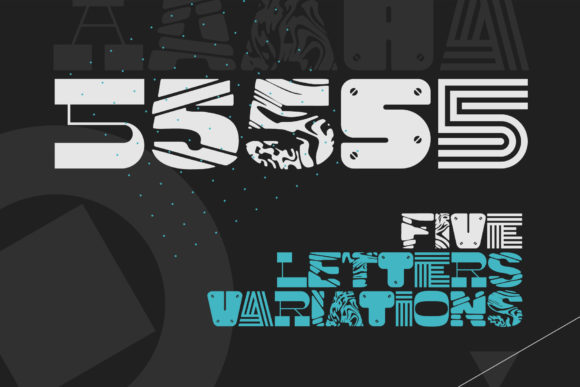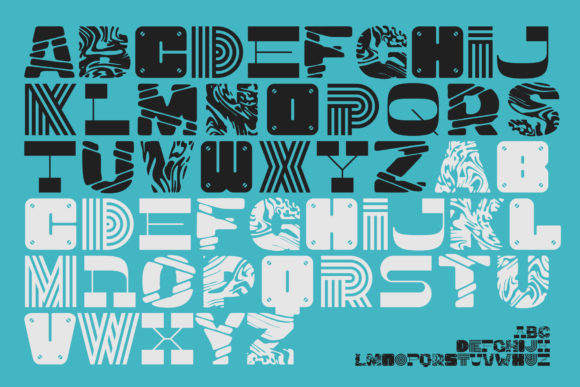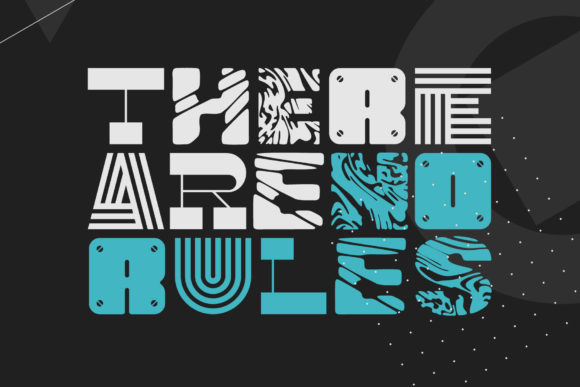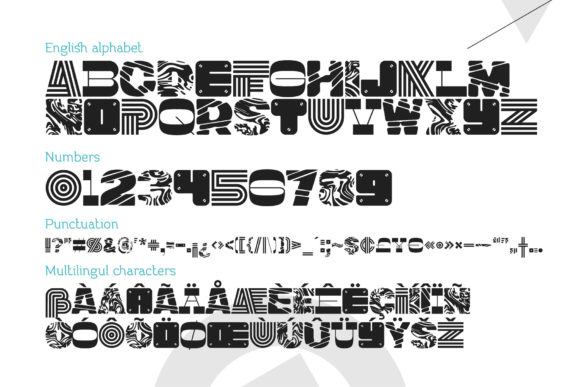
Introduction to No Rules Font
You know that moment when a spark of creativity strikes, and you’re on a roll, brainstorming ideas for your next design project? The excitement is palpable, and the possibilities seem endless. That’s exactly what the No Rules Font is designed to evoke – a sense of freedom and limitless creativity. This bold, jungle-like decorative font is the ultimate design resource for any creative project, and once you’ve got it in your font library, you’ll wonder how you ever managed without it.
Key Features of No Rules Font
- Unique, modern design suitable for creative projects and artistic expressions
- Features a transparent background, allowing for easy layering and customization
- High-quality design resource with a wide range of applications, from print to digital media
- Available in multiple font sizes and resolutions, making it versatile for various design needs
- Perfect for designers, artists, and creatives seeking a bold and eye-catching font for their projects
- Comes in a single weight, making it easy to use and integrate into design workflows
Honest Review: No Rules Font
The high-quality design of the font is impressive, with a transparent background that makes it versatile for any project. Whether I’m working on a logo, poster, or social media graphic, the No Rules Font has been a reliable choice.
- Great for logos, posters, social media graphics, and more
One limitation I’ve noticed is that the font can be a bit overwhelming if used in large quantities. It’s best to use it sparingly to avoid overwhelming the design.
No Rules Font is perfect for creative projects, such as graphics, posters, and typography. You can use it to add a touch of elegance and sophistication to your designs.